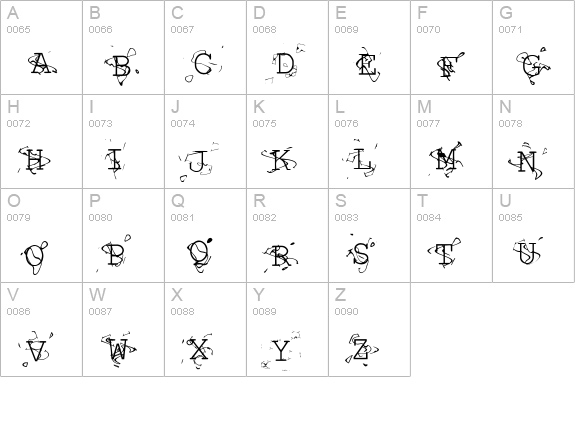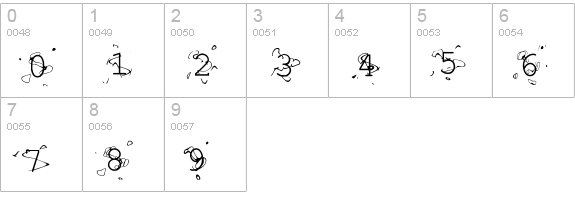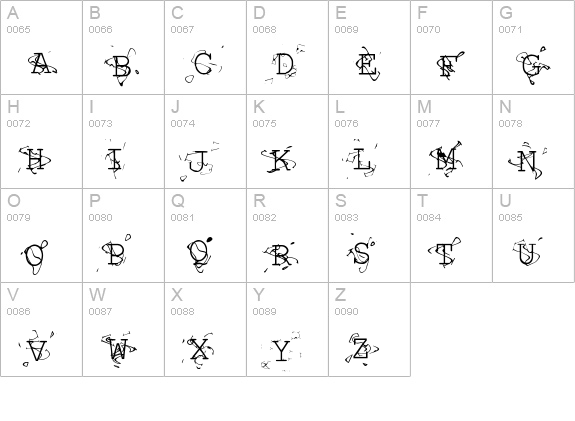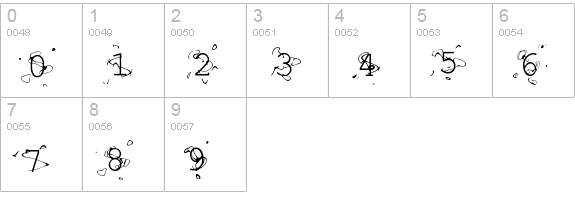
Introducing Liquid Newspaper font, a typeface that exudes sophistication and elegance. With its sleek and modern design, this font is perfect for adding a touch of class to any project. The Liquid Newspaper font is not only visually appealing but also highly versatile, making it suitable for a wide range of design applications. What sets this font apart is its unique blend of traditional newspaper typography with a contemporary twist. The flowing lines and fluid shapes of the letters give the Liquid Newspaper font a dynamic and engaging look that will draw the eye and captivate the reader. Best of all, the Liquid Newspaper font is available for free download at FontsMarket.com. So whether you're working on a print publication, website design, or branding project, you can easily access this stylish font and elevate your work to the next level. Don't miss out on this opportunity to enhance your designs with the Liquid Newspaper font today!